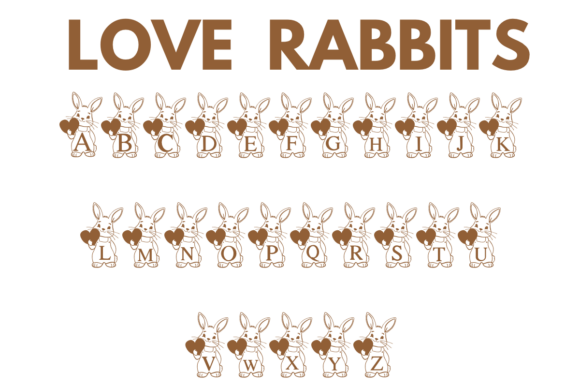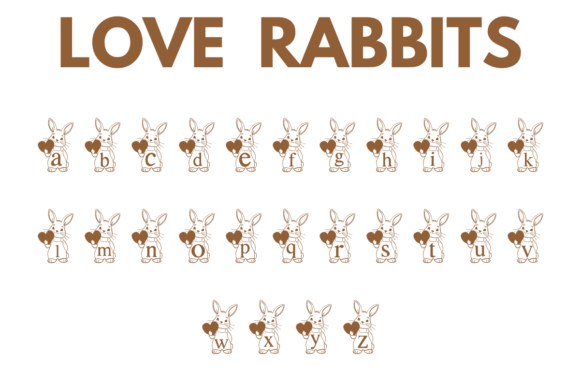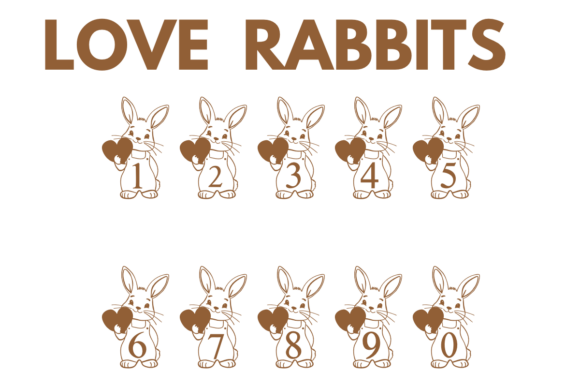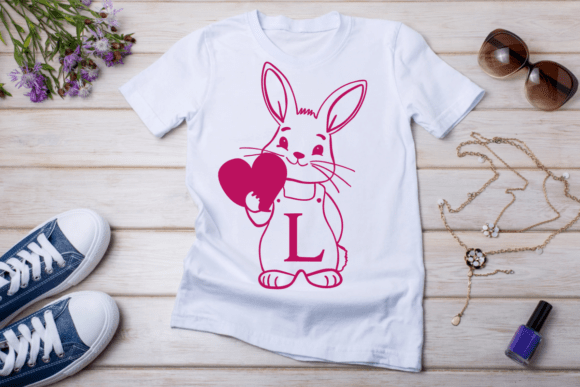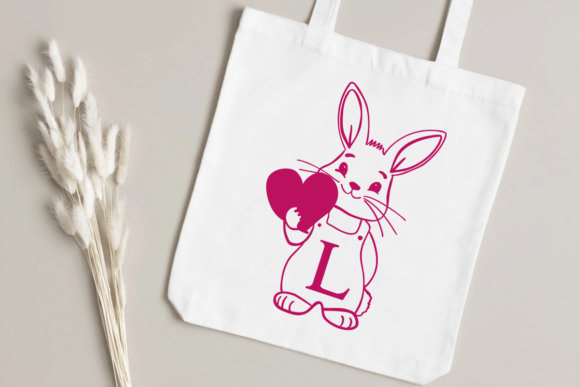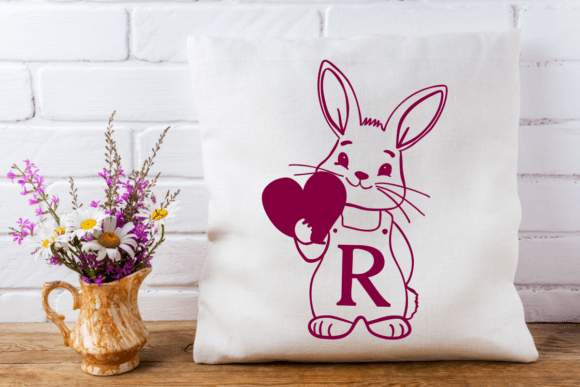
Introduction to Love Rabbits Font
Have you ever sat down with a cup of coffee, a blank notebook, and a spark of creativity? For many of us, these moments are when the best ideas are born. One such moment led me to discover the adorable Love Rabbits Font, a delightful decorative font that’s perfect for adding a touch of whimsy to any creative project.
As a designer, you’re always on the lookout for high-quality design resources to elevate your work. Love Rabbits Font is a treasure trove of inspiration, offering a free download that’s perfect for writing notes, crafting greeting cards, or even designing social media posts. With its transparent background, this font is incredibly versatile, making it a valuable addition to any design toolkit.
Key Features of Love Rabbits Font
- High-quality, unique design perfect for creative projects, such as illustrations, greeting cards, and more.
- Includes a transparent background, making it easy to integrate with various design resources and backgrounds.
- Comes in a single size, making it easy to use in a variety of design applications, from business cards to posters.
- Resolution: 300 DPI, ensuring crisp and clear display on high-resolution screens and prints.
- Unique characteristics include whimsical, playful elements and a romantic touch, making it perfect for designs related to love, relationships, and friendship.
Honest Review: Love Rabbits Font
I recently had the chance to try out the Love Rabbits Font and I must say, it’s been a delightful addition to my design projects. The font is a great example of a high-quality, free download that can elevate any creative project.
Here are some of the things that I really like about this font:
- ✨ The font is highly customizable, with a transparent background that makes it perfect for overlaying on images or other design elements.
- ✨ The font is incredibly versatile, with a wide range of styles and sizes that can be used for everything from titles to body text.
Of course, no font is perfect, and I did encounter a few limitations while working with the Love Rabbits Font:
- ⚠️ The font may not be suitable for very large or complex designs, as it can become a bit pixelated at high resolutions.
Overall, I’m really impressed with the Love Rabbits Font. It’s a high-quality, versatile font that’s perfect for a wide range of design projects. If you’re looking for a great free download to add some personality to your designs, I would definitely recommend checking this one out.
Use the Love Rabbits Font in conjunction with a transparent background to create a visually appealing design. Experiment with different font sizes and styles to add depth and interest to your design.
The Love Rabbits Font is perfect for creative projects, such as wedding invitations, baby shower decorations, and social media graphics. Its high-quality design makes it an ideal choice for any project that requires a touch of whimsy and elegance.